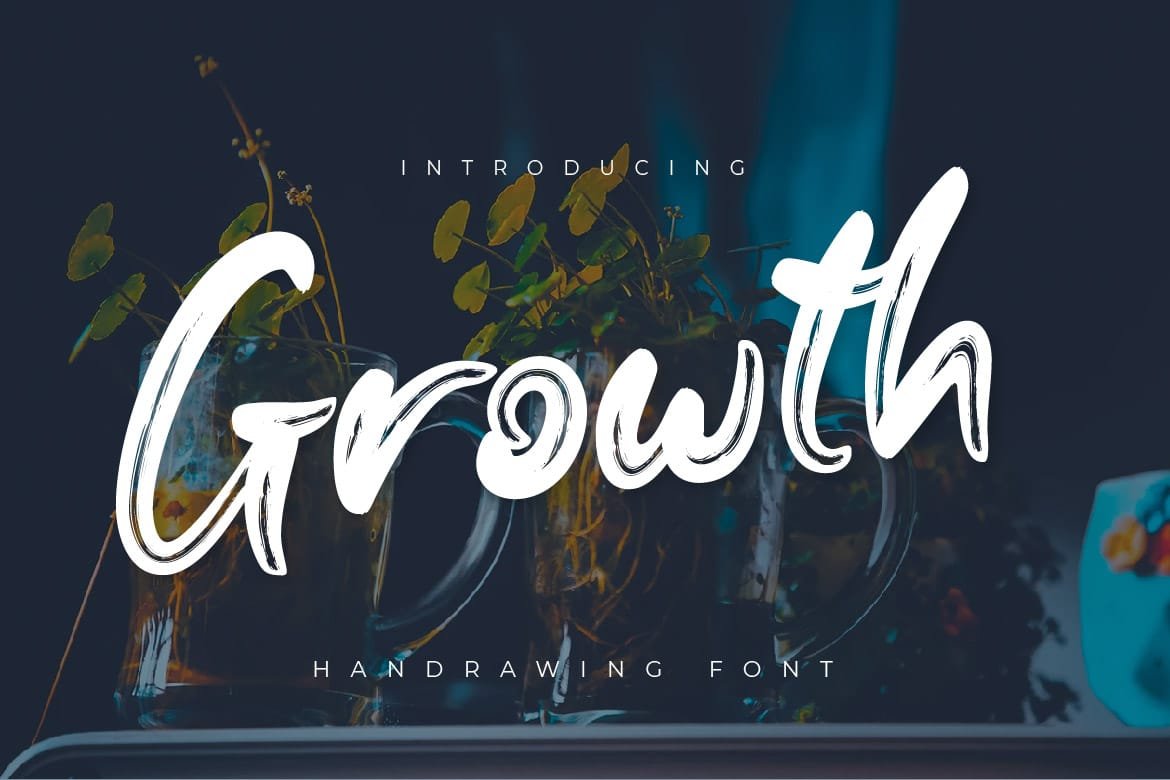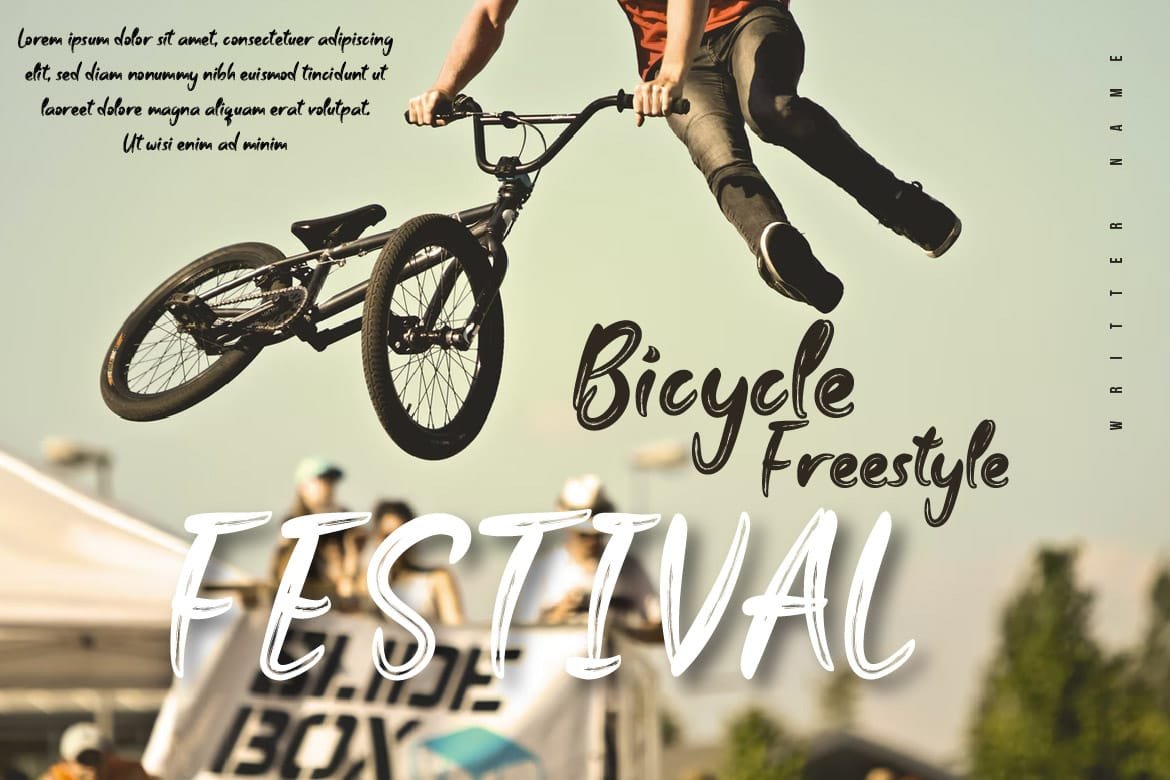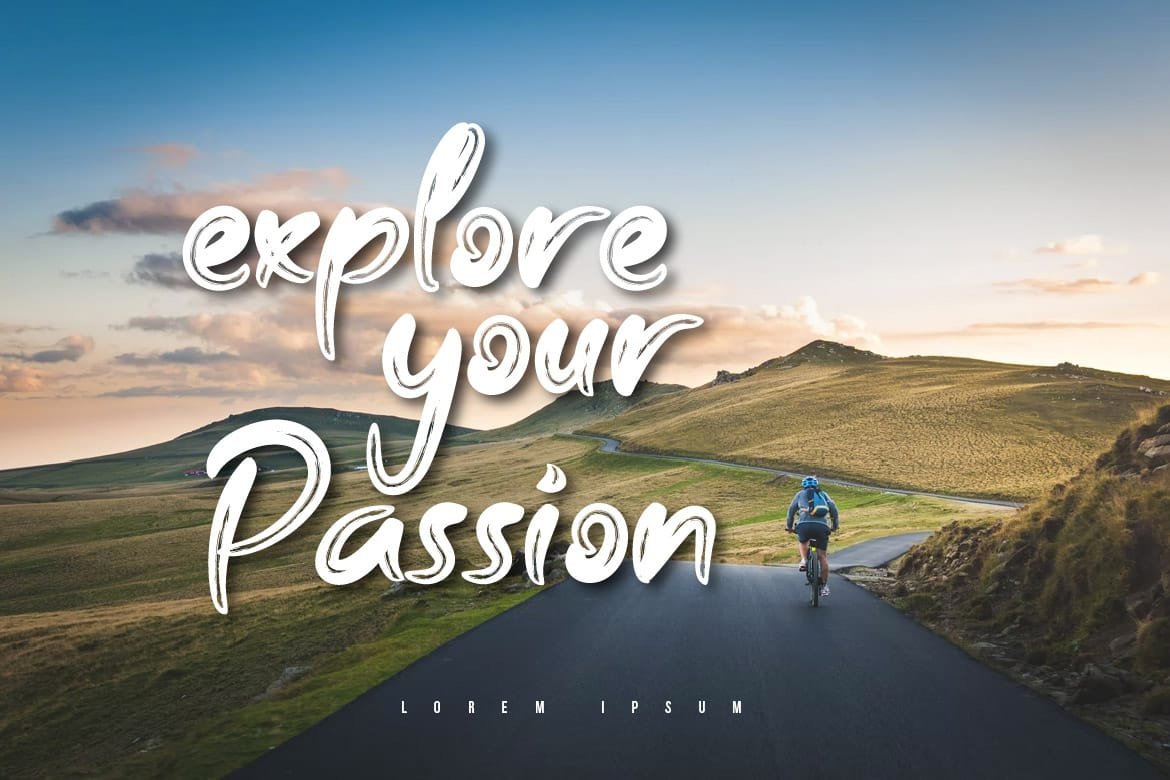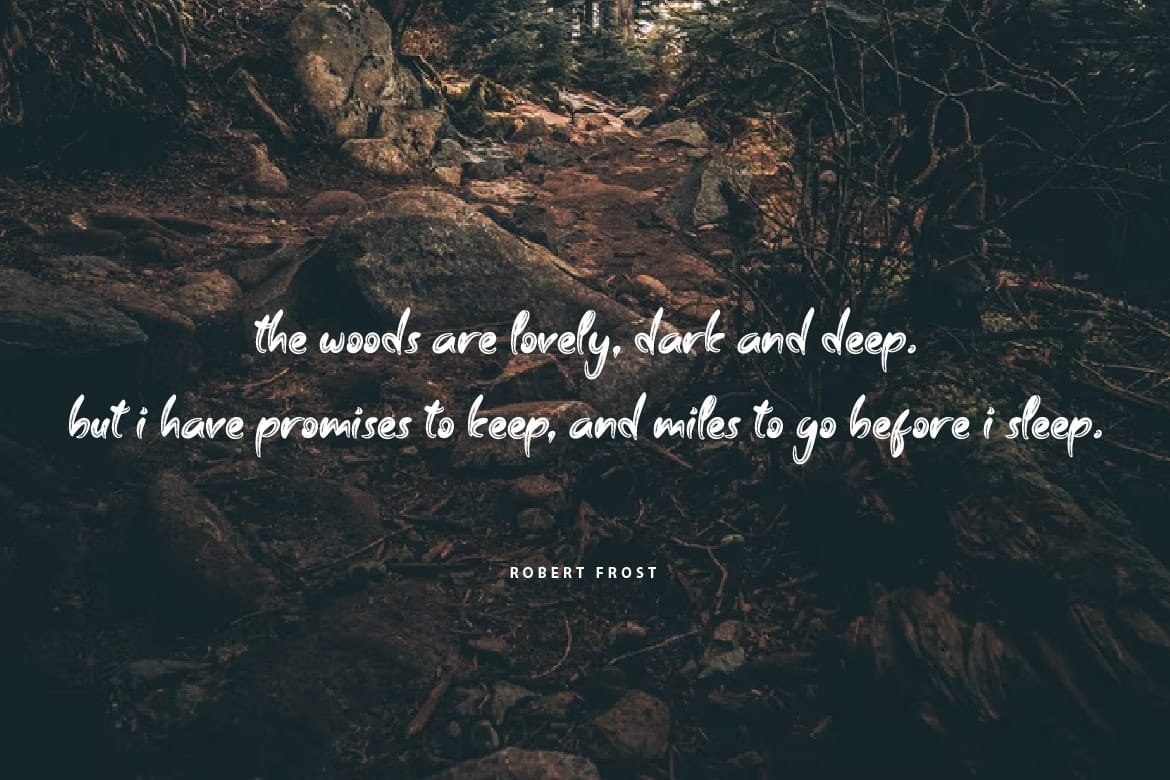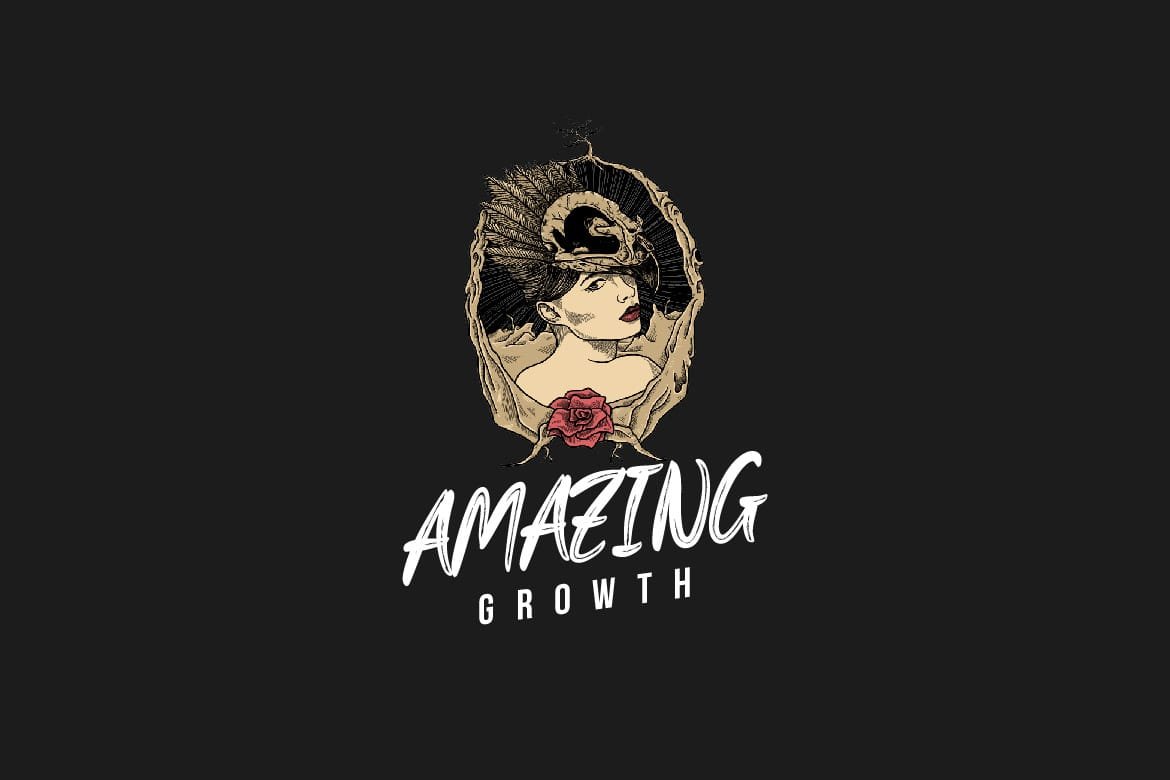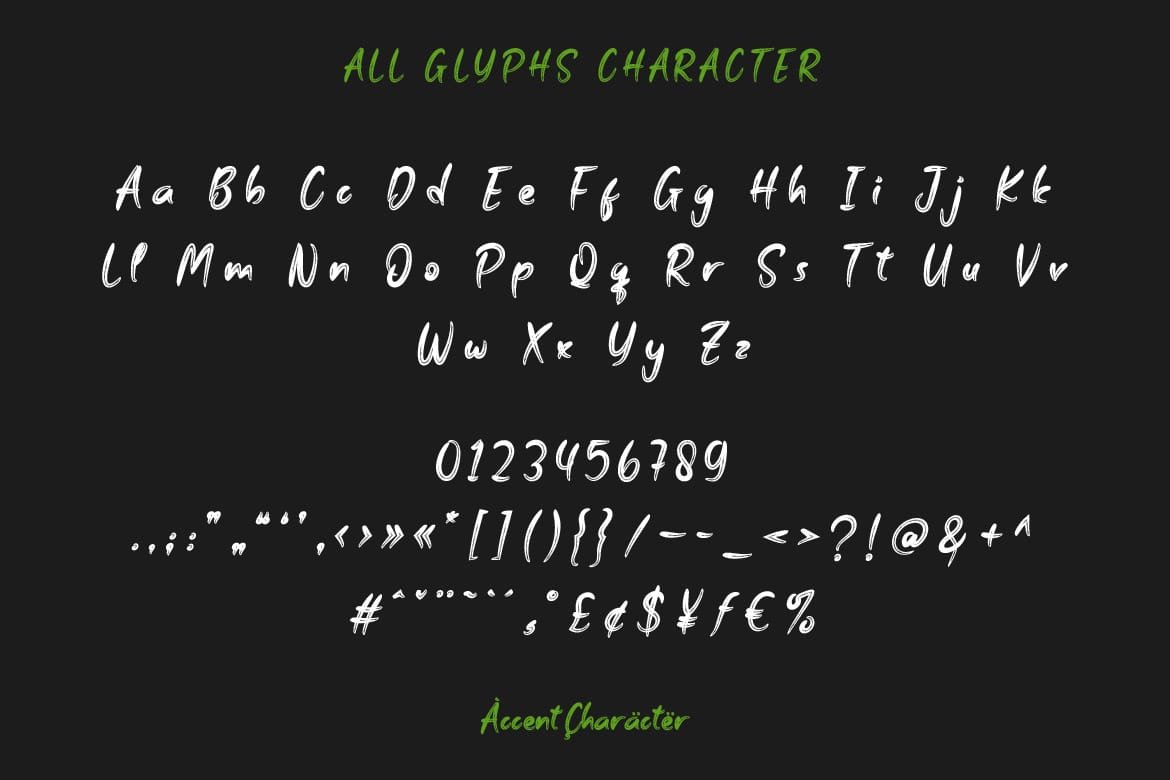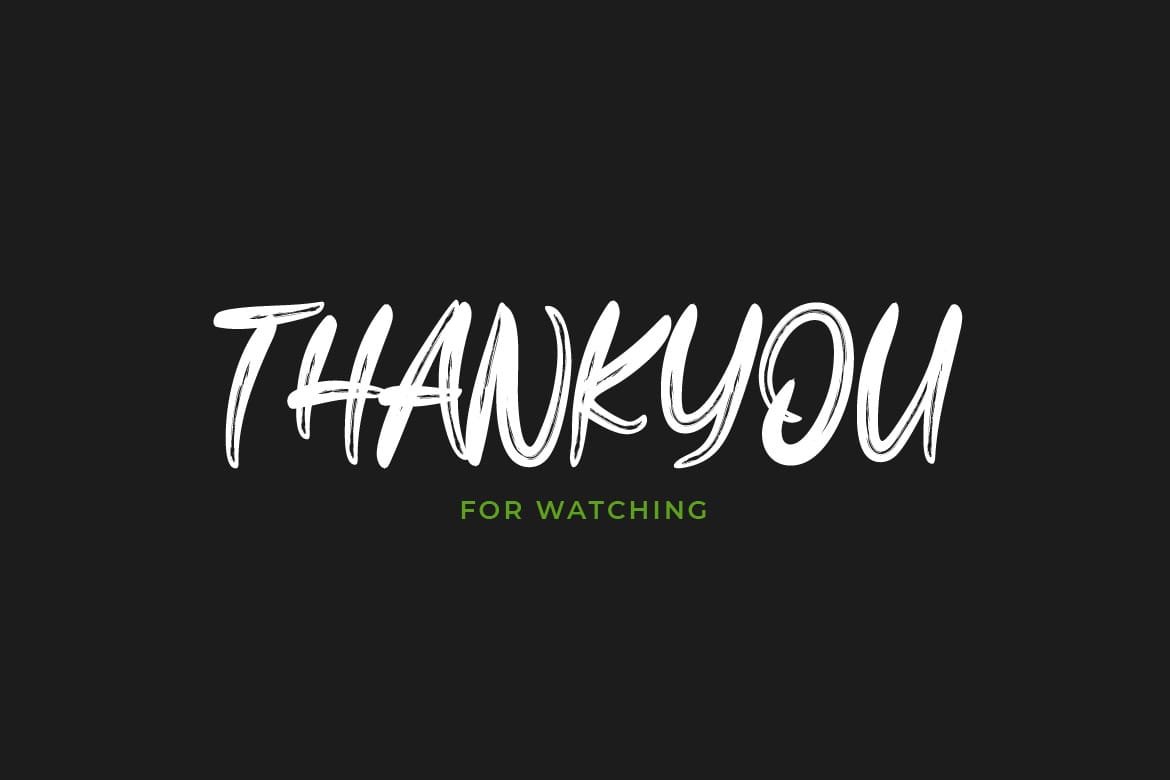
- Growth – Brush Handwritten Font
Growth is a powerful and dynamic handwritten font. With vigorous sways and moving lines, this font reflects the spirit of growth and change. Perfect for projects wanting to showcase courage and progress, such as motivational poster designs, digital artwork, or change-oriented branding.